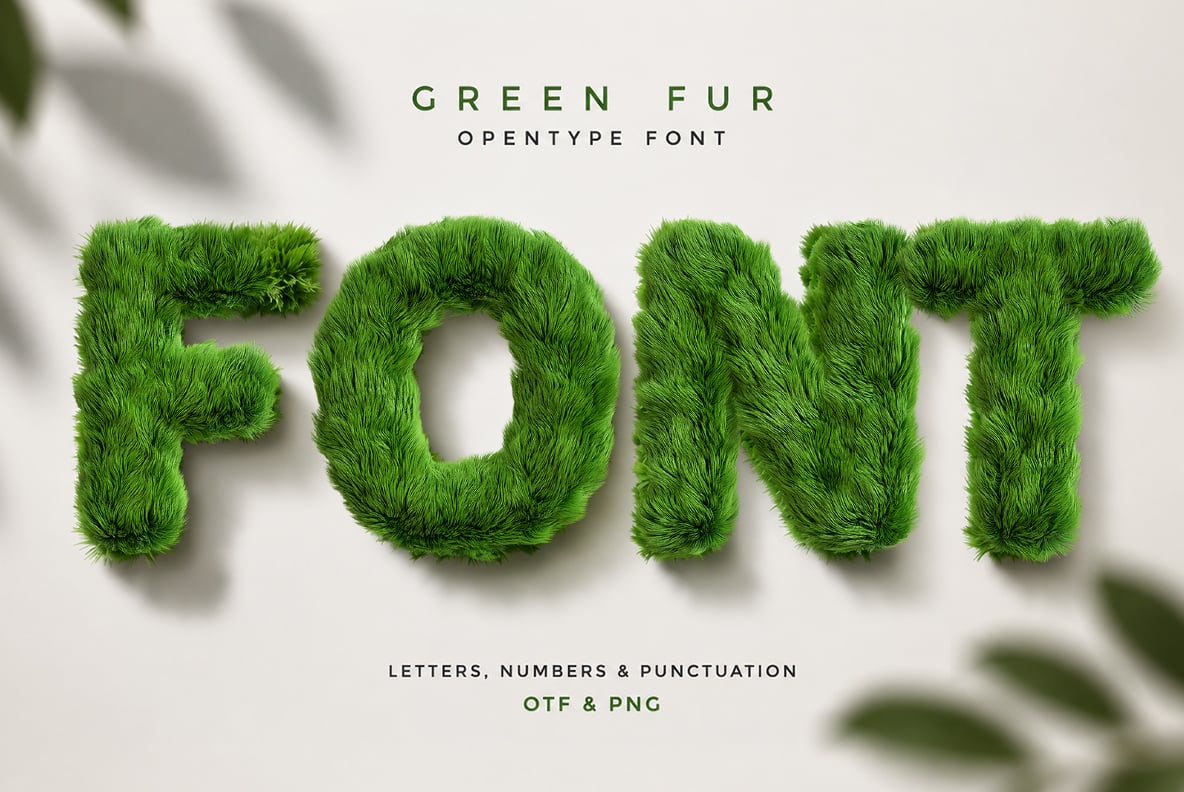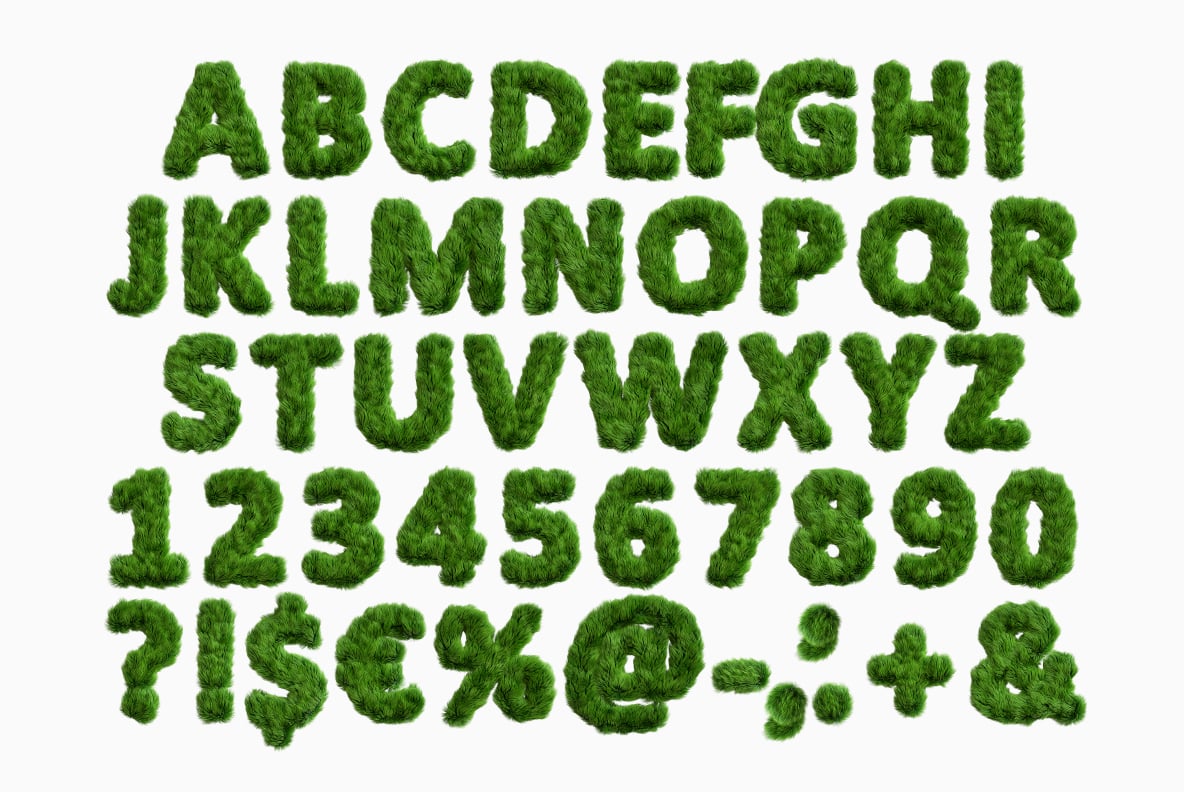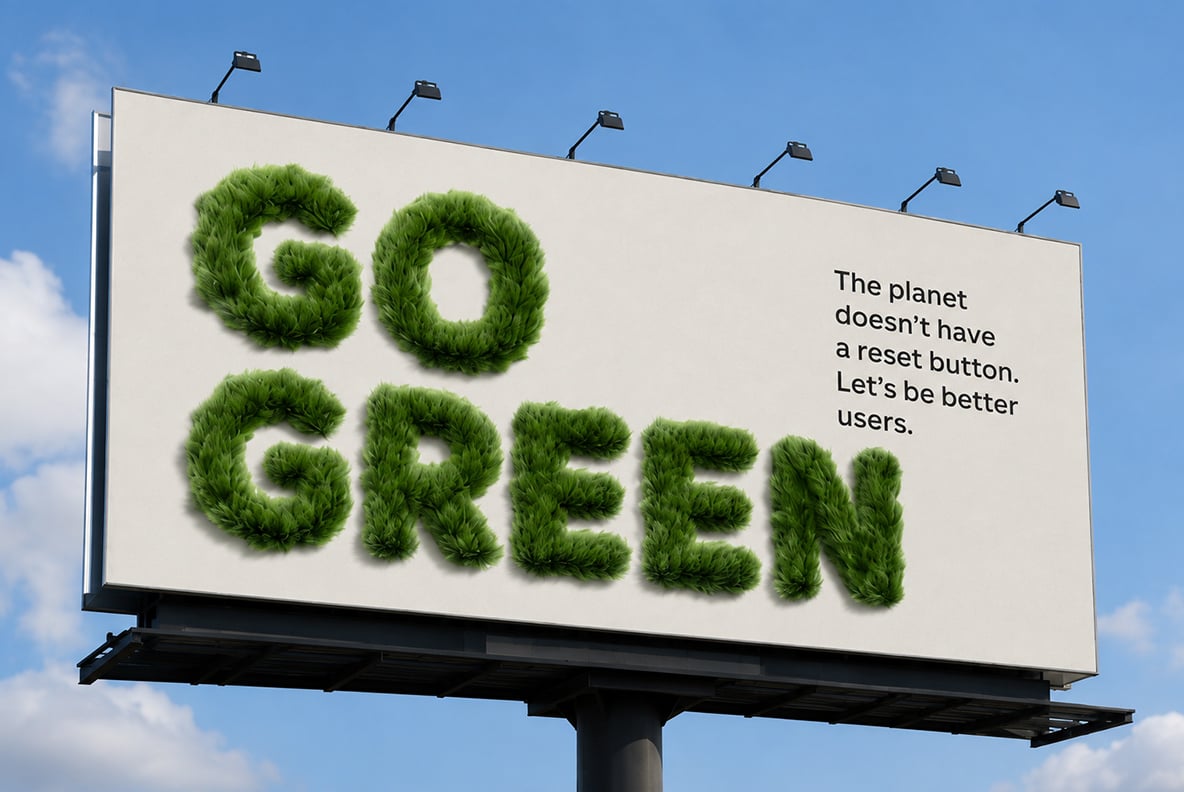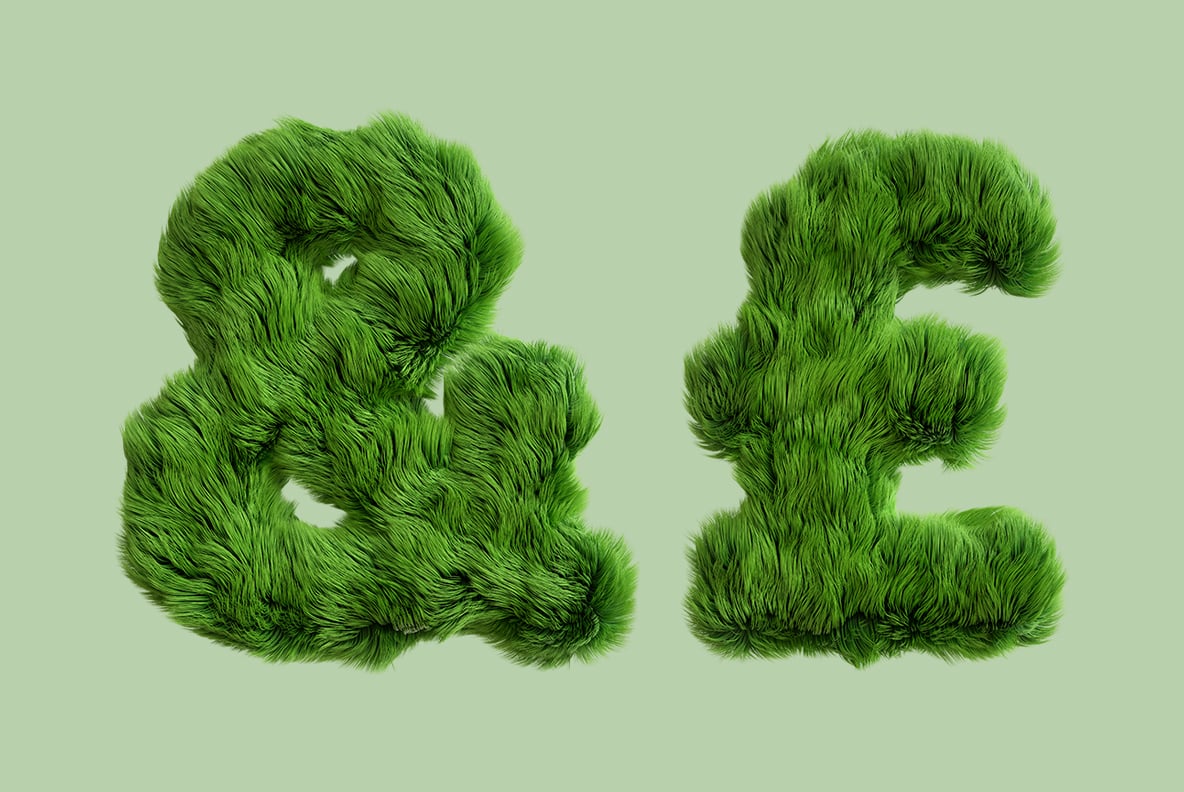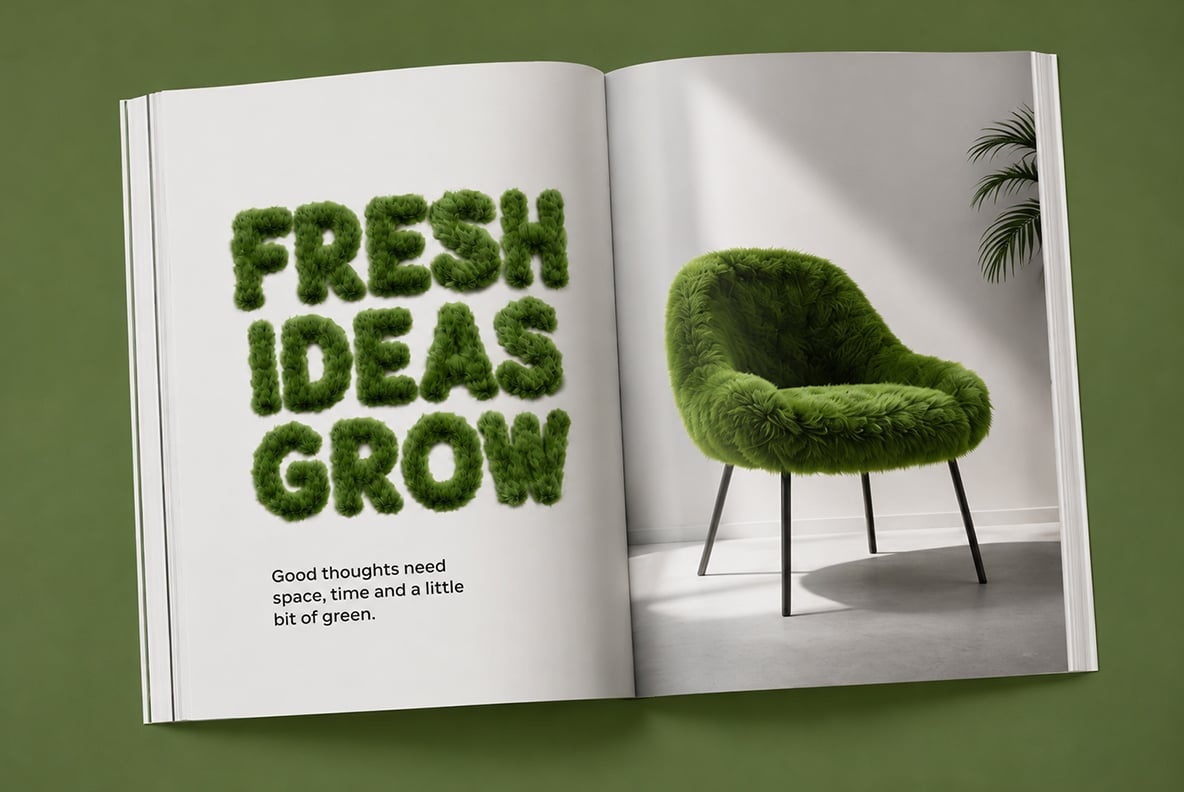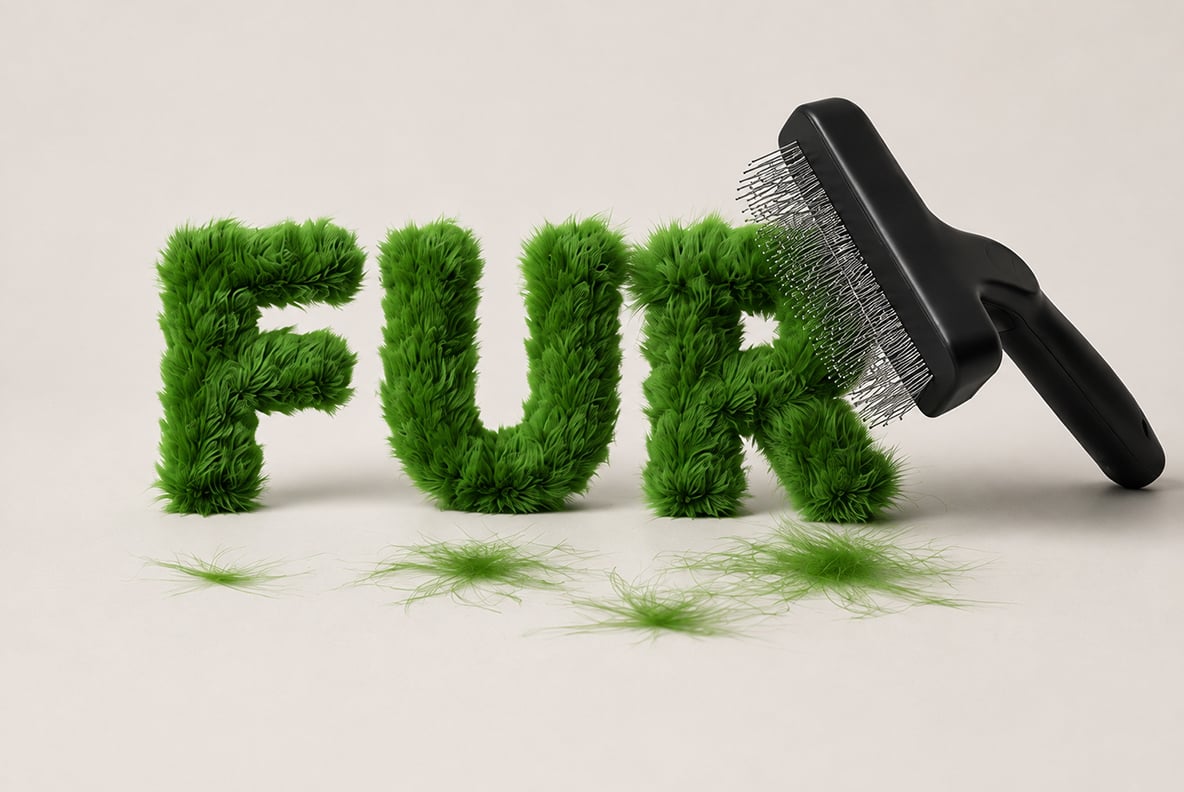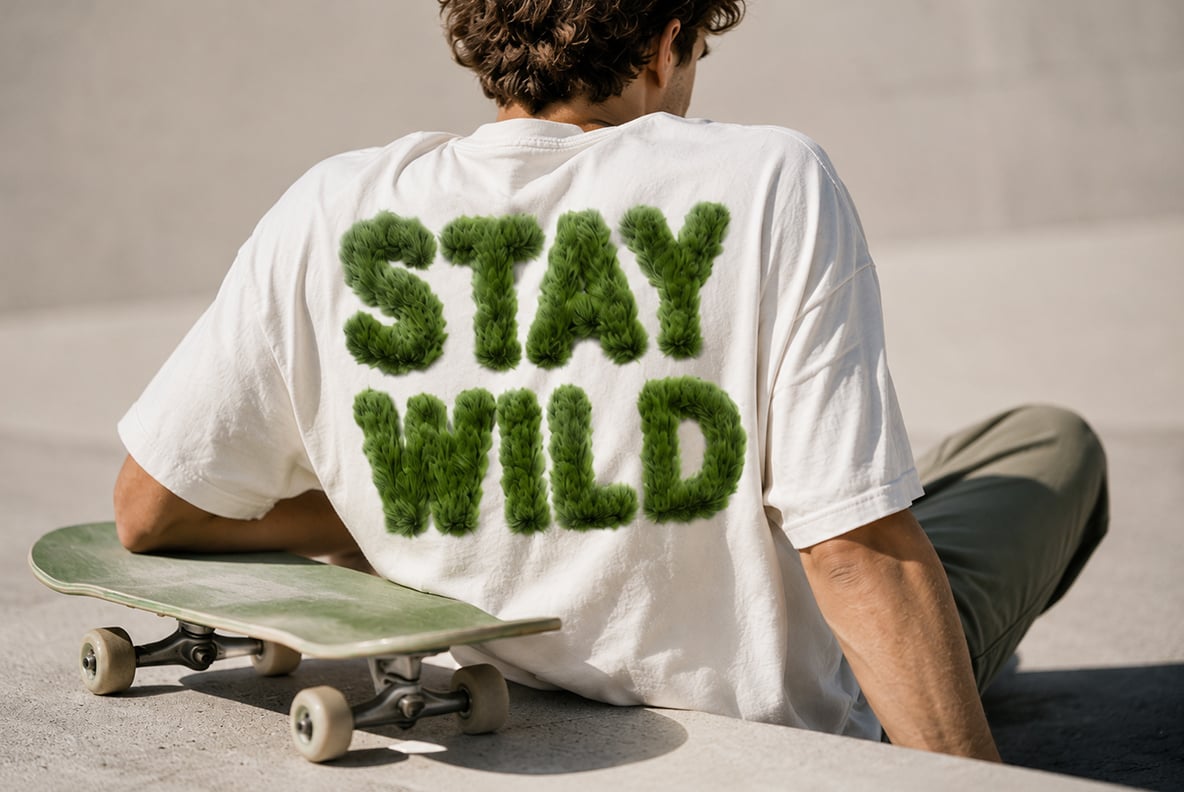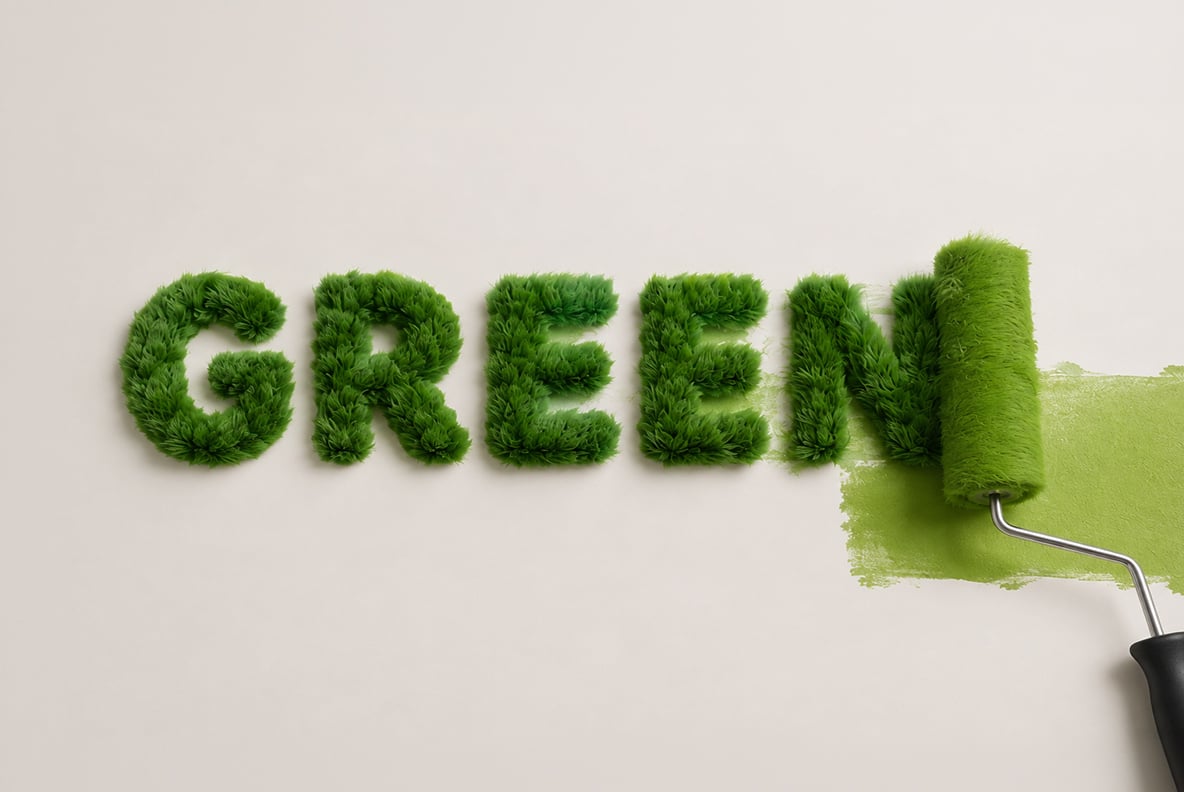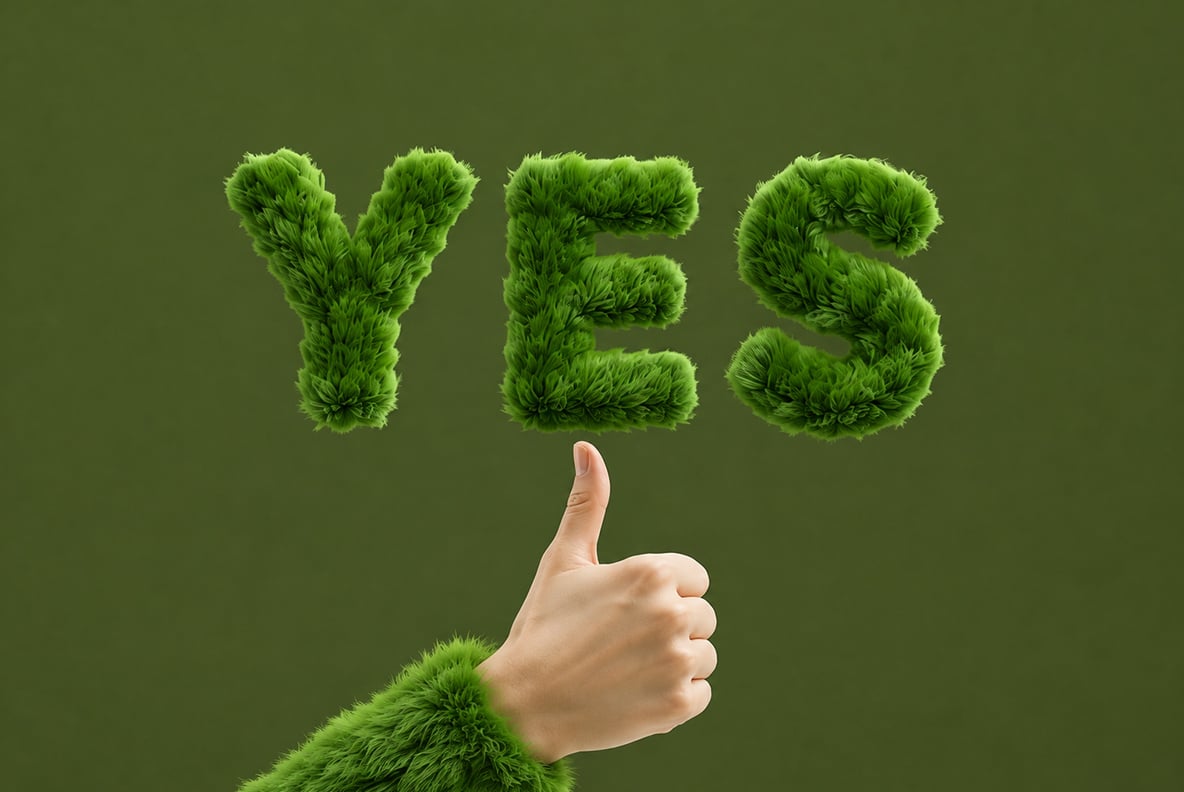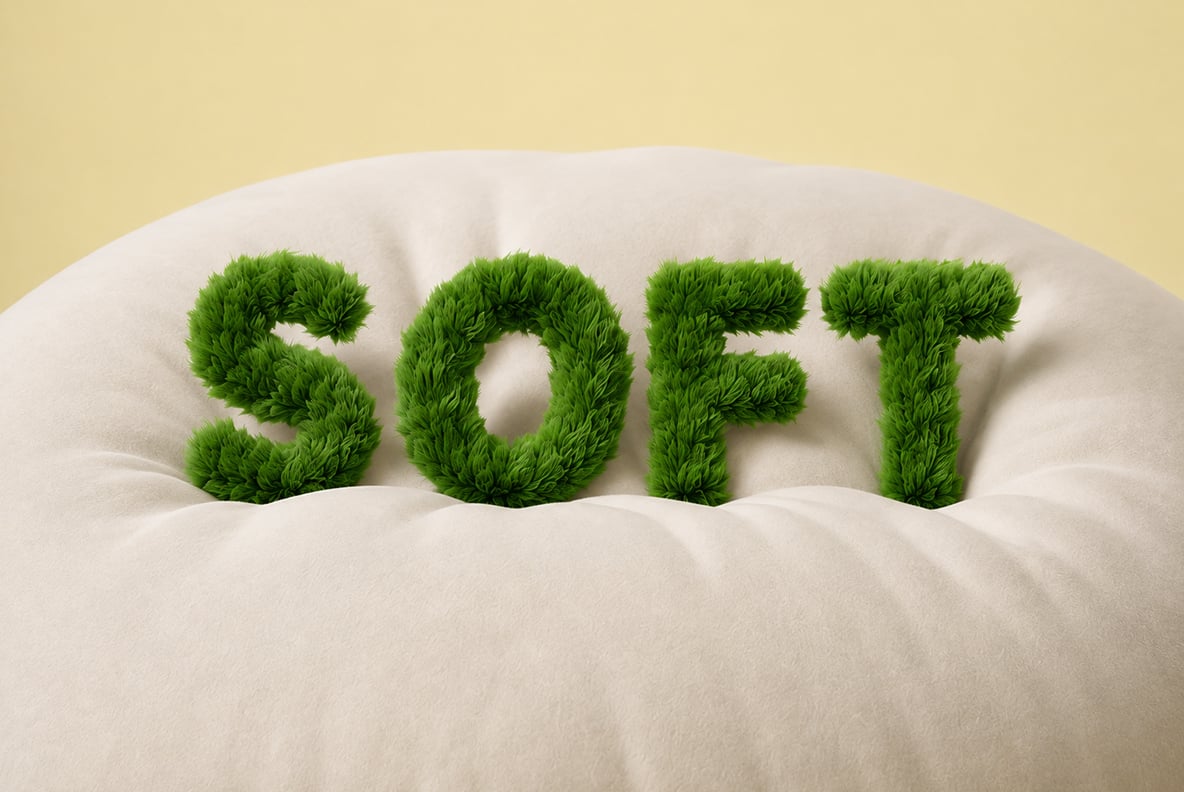
Green Fur Font
Green Fur Font brings the playful texture of soft green fur into bold, eye-catching typography. Every character is carefully crafted to create a realistic fluffy appearance while remaining highly readable and visually striking. The package includes a fully functional OpenType (OTF) font for seamless typing and a complete set of high-resolution PNG letters with transparent backgrounds, perfect for custom layouts, branding, posters, social media, packaging, apparel, and creative projects. Whether you're designing nature-inspired graphics, playful advertisements, eco-themed campaigns, or unique merchandise, Green Fur Font adds warmth, personality, and a fresh organic touch that instantly makes every design stand out.